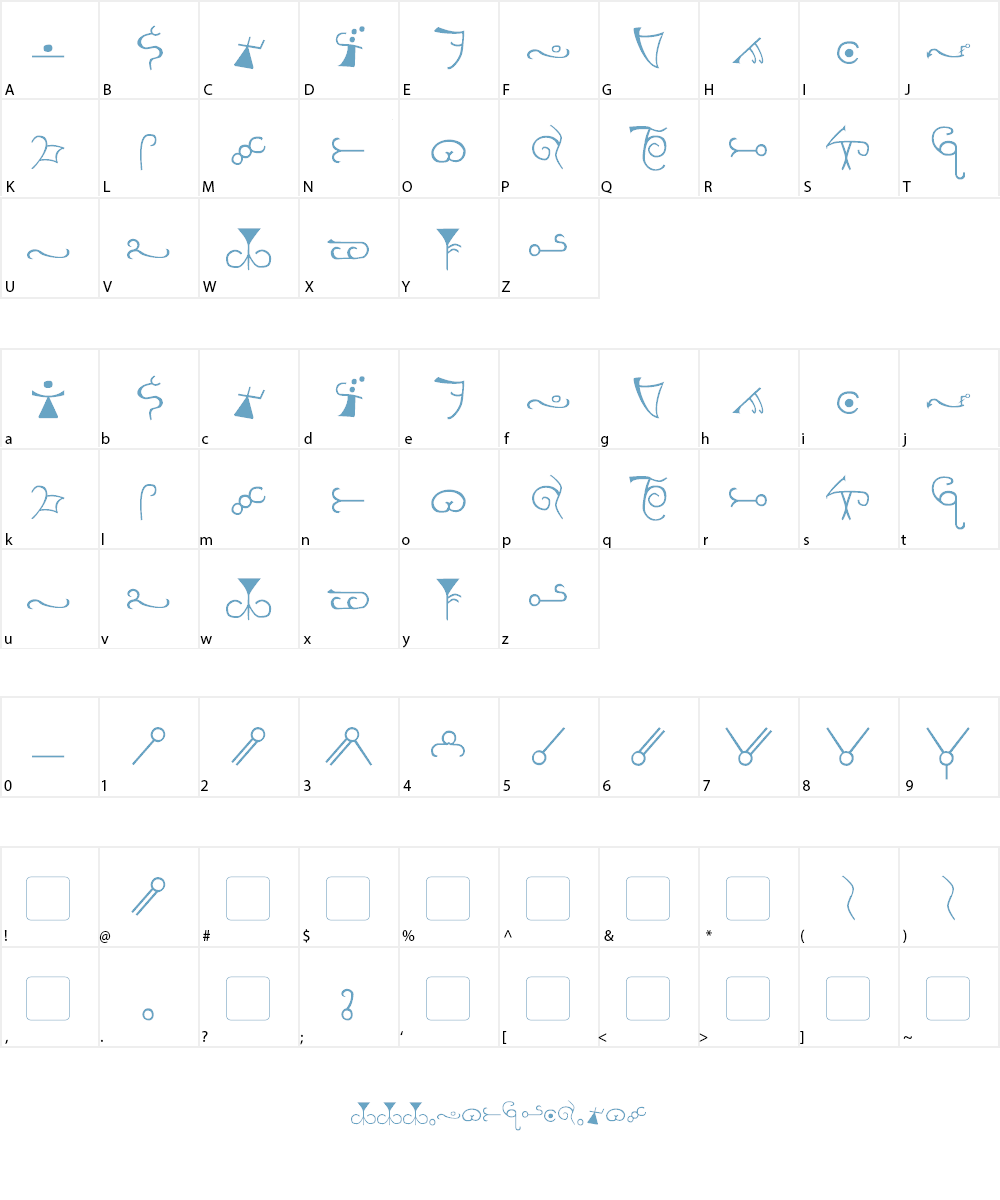
Old Espruar is based on the fantasy elven script found in TSR's Forgotten Realms (Second Edition). It is a very artistic, pictographic set of runes, combining a variety of disparate styles. Includes all official glyphs.
Note, this script is now de-canonized and replaced with Espruar.